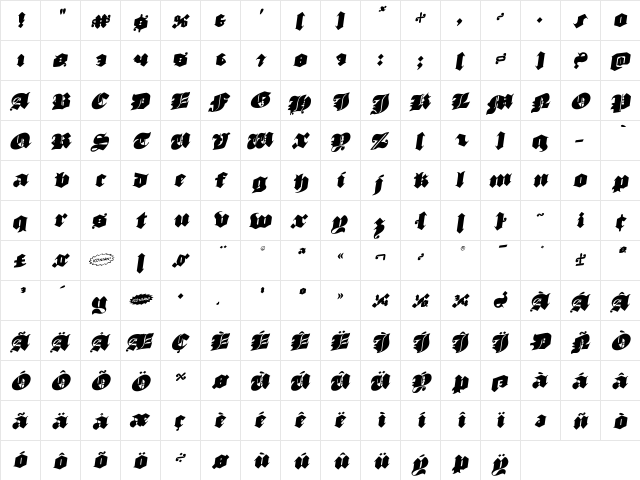
Lux Contra Tenebras Rotatalic Italic
Italic ·  Daniel Zadorozny ·
DesignerDaniel Zadorozny
Design Context for Lux Contra Tenebras Rotatalic Typeface
Lux Contra Tenebras Rotatalic is a composed and adaptable typeface that performs quietly and consistently across a wide range of design contexts. The slanted form adds forward momentum and visual energy.
Pro Tip: Use Lux Contra Tenebras Rotatalic for emphasis, pull quotes, and subheadings where its slanted energy can add rhythm to the layout.